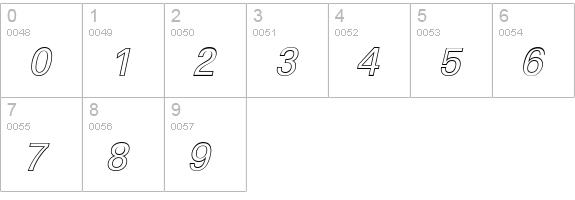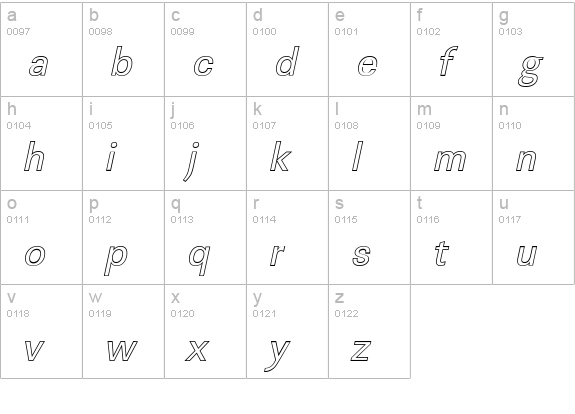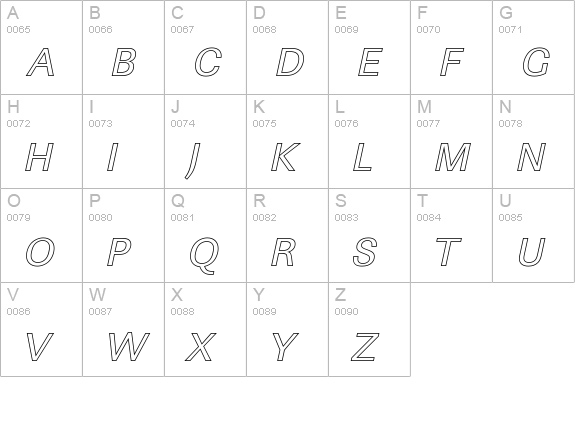
LinearOu-Italic is a distinctive, italic variant in the LinearOu typeface family \xE2\x80\x94 well suited to design and typography projects.
LinearOu-Italic is a sleek and elegant font that combines the simplicity of linear shapes with a touch of sophistication in its italic style. The clean lines and subtle curves of this font make it perfect for a wide range of design projects, from branding to editorial design. This versatile font is completely free to download at FontsMarket.com, allowing you to easily incorporate it into your creative work without any cost. Its modern and stylish appearance will add a touch of class to any project, making it a great choice for those looking for a font that is both professional and eye-catching. Whether you're designing a logo, creating a poster, or working on a website, LinearOu-Italic is sure to make a statement and elevate your design to the next level. Download this font today and unleash your creativity with its timeless and sophisticated look.